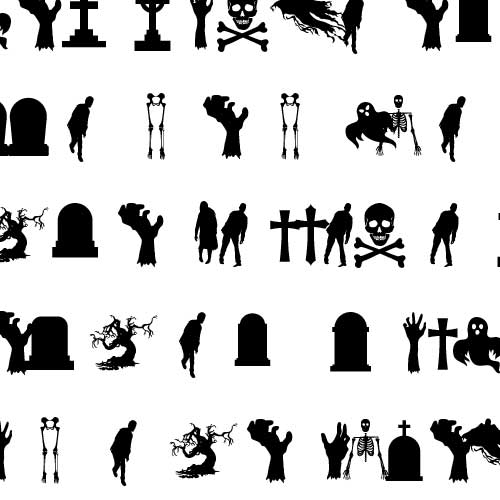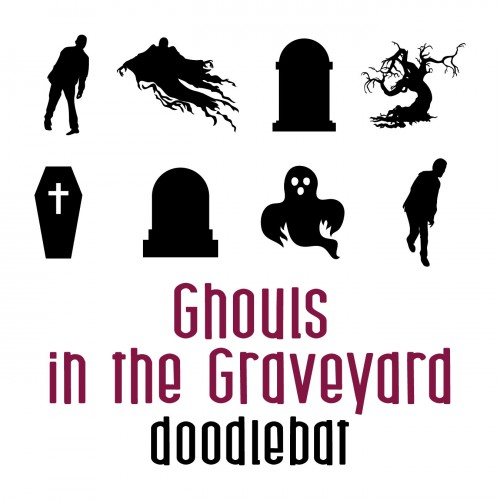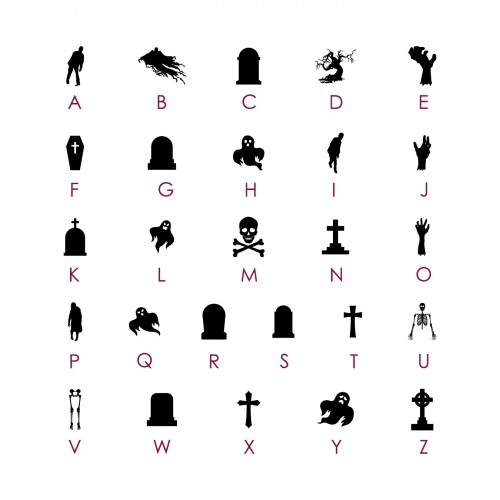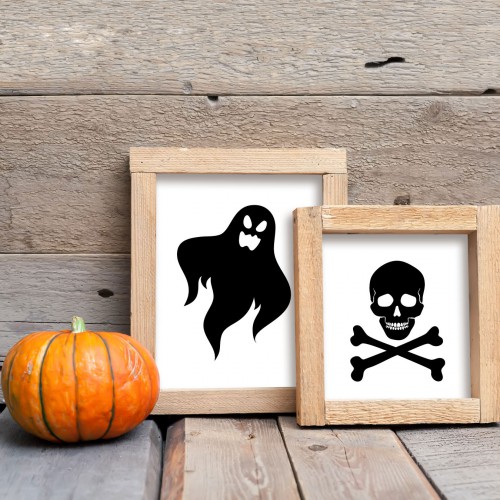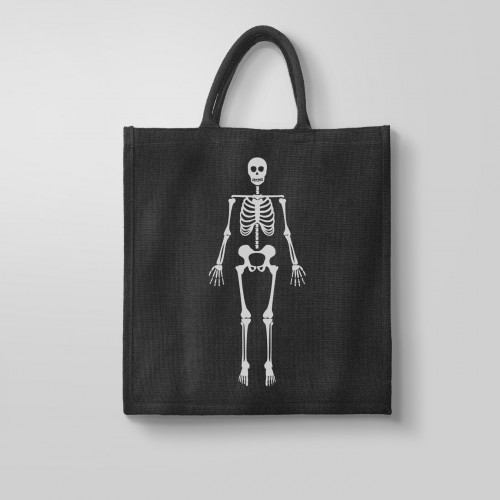
DB Ghouls in the Graveyard - DB
This creepy doodlebat features 26 different spooky silhouettes from ghosts, ghouls, skeletons and gravestones, perfect for Halloween decor, crafts, cards and more!